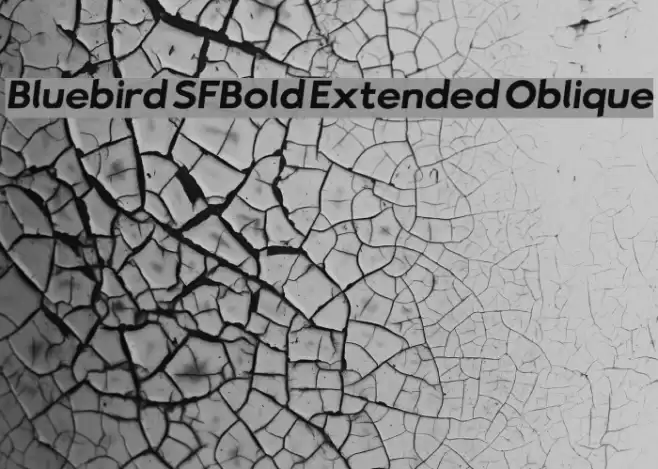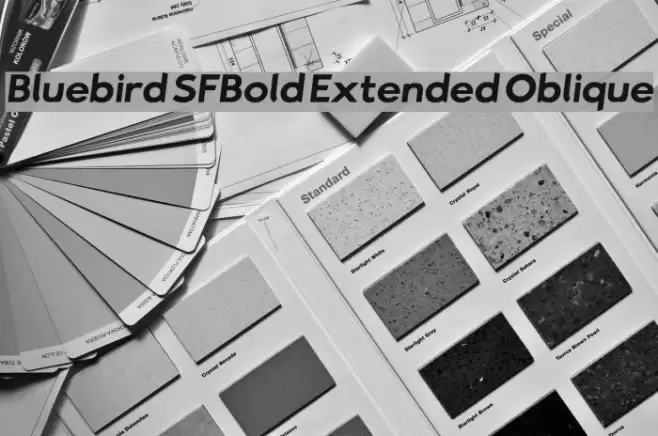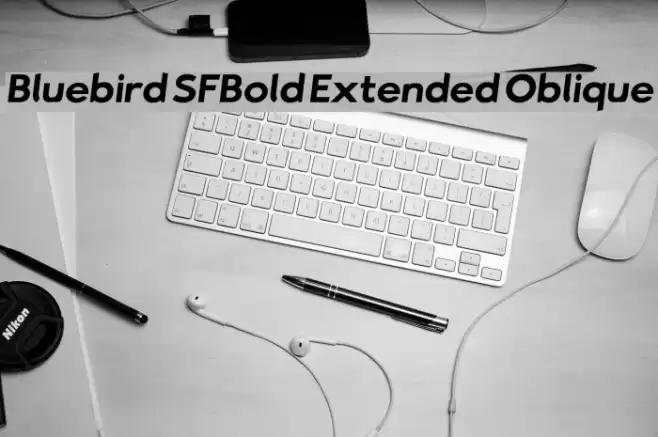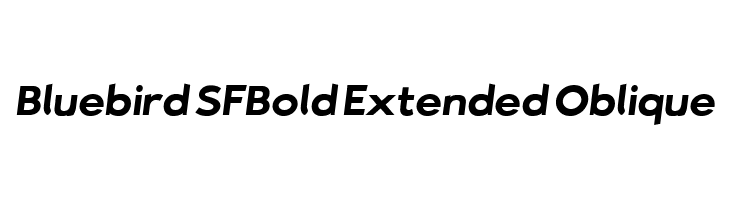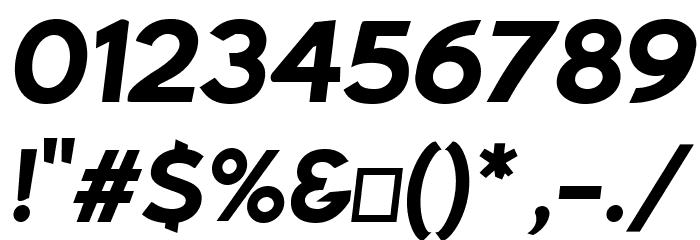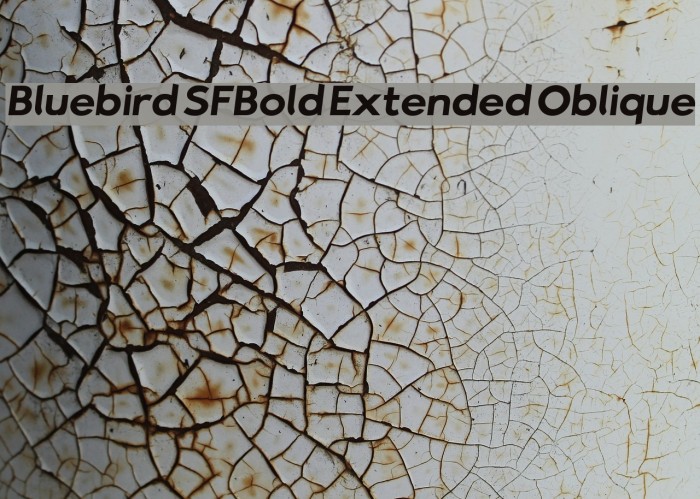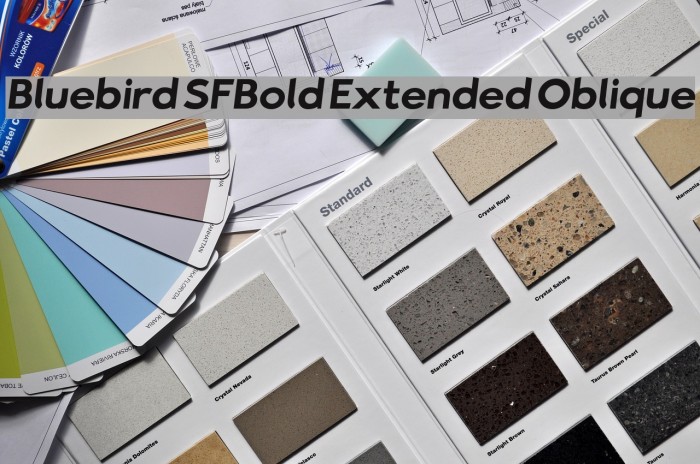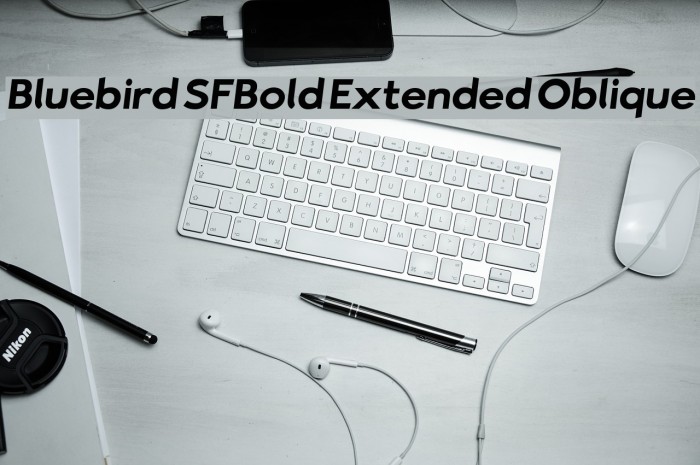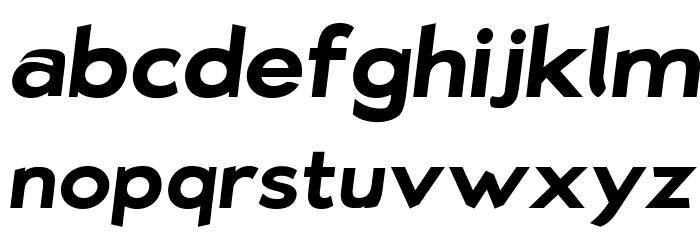
Bluebird SFBold Extended Oblique
This font features a bold and extended style with a distinct oblique slant, giving it a dynamic and modern appearance. The characters are well-defined with a strong presence, making them highly legible. The uppercase and lowercase letters maintain a consistent style, with smooth curves and clean lines. The numerals are equally bold, ensuring clarity in numerical data. Special characters are included, adding versatility for various design needs. The overall design is sleek and contemporary, suitable for projects that require a strong visual impact.
A bold, extended, and oblique font with a modern and dynamic style.
- Proposed Projects: Ideal for branding, advertising, headlines, and any project requiring a bold statement.
- Width: Expanded
- Use Case: Headlines, Logos, Advertising